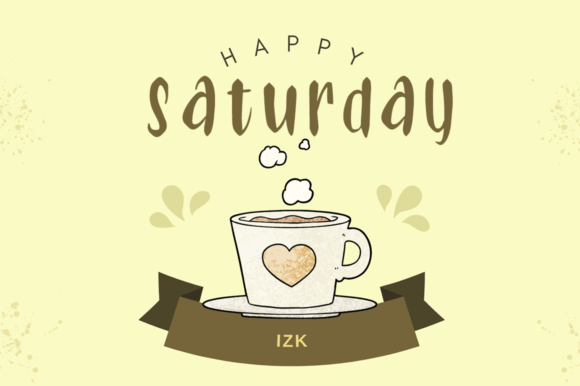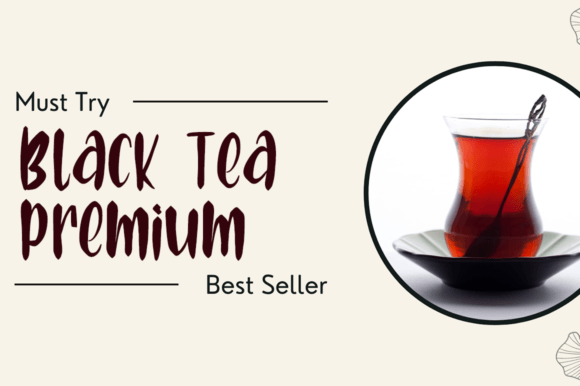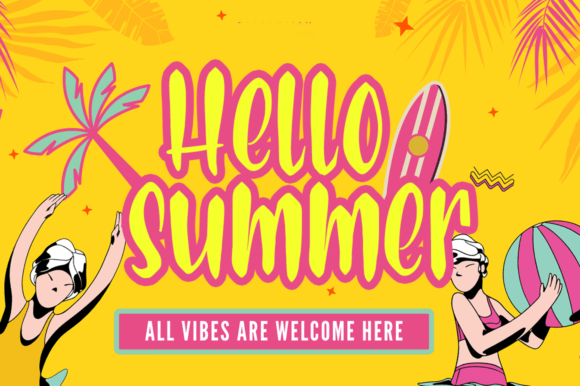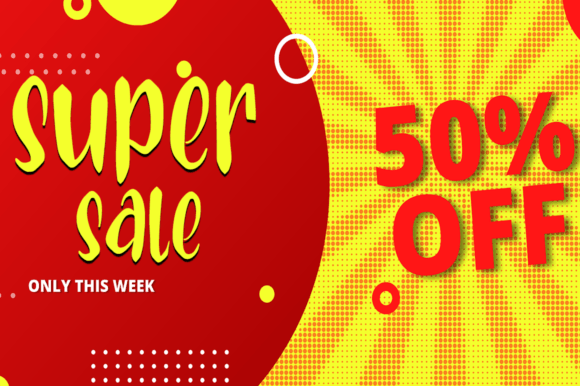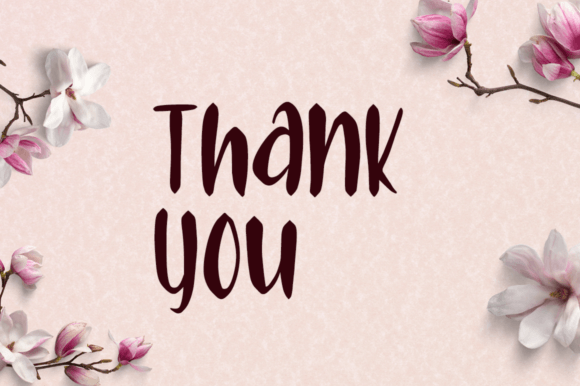
Introduction to Absurd Font
As I sat at my desk, staring blankly at my computer screen, I couldn’t help but feel a sense of creative block. I was working on a new project, a wedding invitation design for a close friend, and I just couldn’t seem to find the right font. That’s when I stumbled upon the Absurd Font – a fresh and modern handwritten font that instantly captured my attention.
The Absurd Font is more than just a pretty face; it’s a design resource that can elevate your creative project from good to great. With its clean and inviting appearance, flowing letterforms, and subtle variations in stroke width, this font is perfect for designs that require a sense of warmth and approachability.
Whether you’re working on a free download for a blog or a high-quality branding project for a wellness brand, the Absurd Font is a valuable addition to any designer’s toolkit. And the best part? It’s incredibly versatile, allowing you to create designs with transparent backgrounds or bold, eye-catching graphics.
Key Features of Absurd Font
- Unique and quirky design, perfect for creative projects and adding a touch of humor
- Transparent background, allowing for easy layering and customization in design applications
- High-quality design, scalable up to 72 DPI, suitable for print and digital use
- Perfect for designers seeking a unique and eye-catching design resource for their next project
Honest Review: Absurd Font
I recently stumbled upon the Absurd Font and was intrigued by its unique style. As a designer, I appreciate high-quality design resources like this one, especially when they’re available for free download.
The Absurd Font is perfect for a creative project that needs a touch of quirkiness. Its transparent background makes it easy to overlay on top of other images or designs, giving you endless possibilities for customization.
Here are some things that work well with the Absurd Font:
- Unique style that adds a touch of whimsy to any design
- High-quality font that looks great at various sizes
- Transparent background for easy overlaying
- May not be suitable for all types of projects, such as corporate or professional designs
- Some users may find the font too quirky or distracting
Overall, I think the Absurd Font is a great addition to any designer’s toolkit. While it may not be perfect for every project, it’s a fun and versatile font that can add a lot of personality to your designs.
The Absurd Font is perfect for creative projects that require a unique and playful touch. Use it in social media graphics, advertising campaigns, and other design projects where you want to stand out from the crowd.
To get the most out of the Absurd Font, use it in combination with other design elements, such as images and graphics. Experiment with different font sizes, colors, and styles to create a unique and eye-catching design. Additionally, use the font in a design resource like a brochure or flyer to make it more visually appealing.
Alternatives to Absurd Font
Comic Sans MS is a playful, cursive font often used in creative projects that require a lighthearted tone. It’s a great choice for children’s books, advertisements, and social media graphics. Download Comic Sans MS for free and use it to add a touch of whimsy to your design.
While Absurd Font is more experimental, Comic Sans MS is a more traditional choice with a softer, more approachable feel. Use Comic Sans MS when you want a friendly, approachable tone without the boldness of Absurd Font.
Great Vibes is a beautiful, handwritten font perfect for creative projects that require a sense of elegance and sophistication. It’s ideal for wedding invitations, quotes, and other designs that need a touch of class. You can download Great Vibes for free and use it with a transparent background to create a stunning design.
Unfortunately, the Absurd Font does not have a transparent background. However, you can easily create a transparent background using image editing software or a design tool. This will allow you to use the font in a variety of creative ways, from graphic design to digital art.